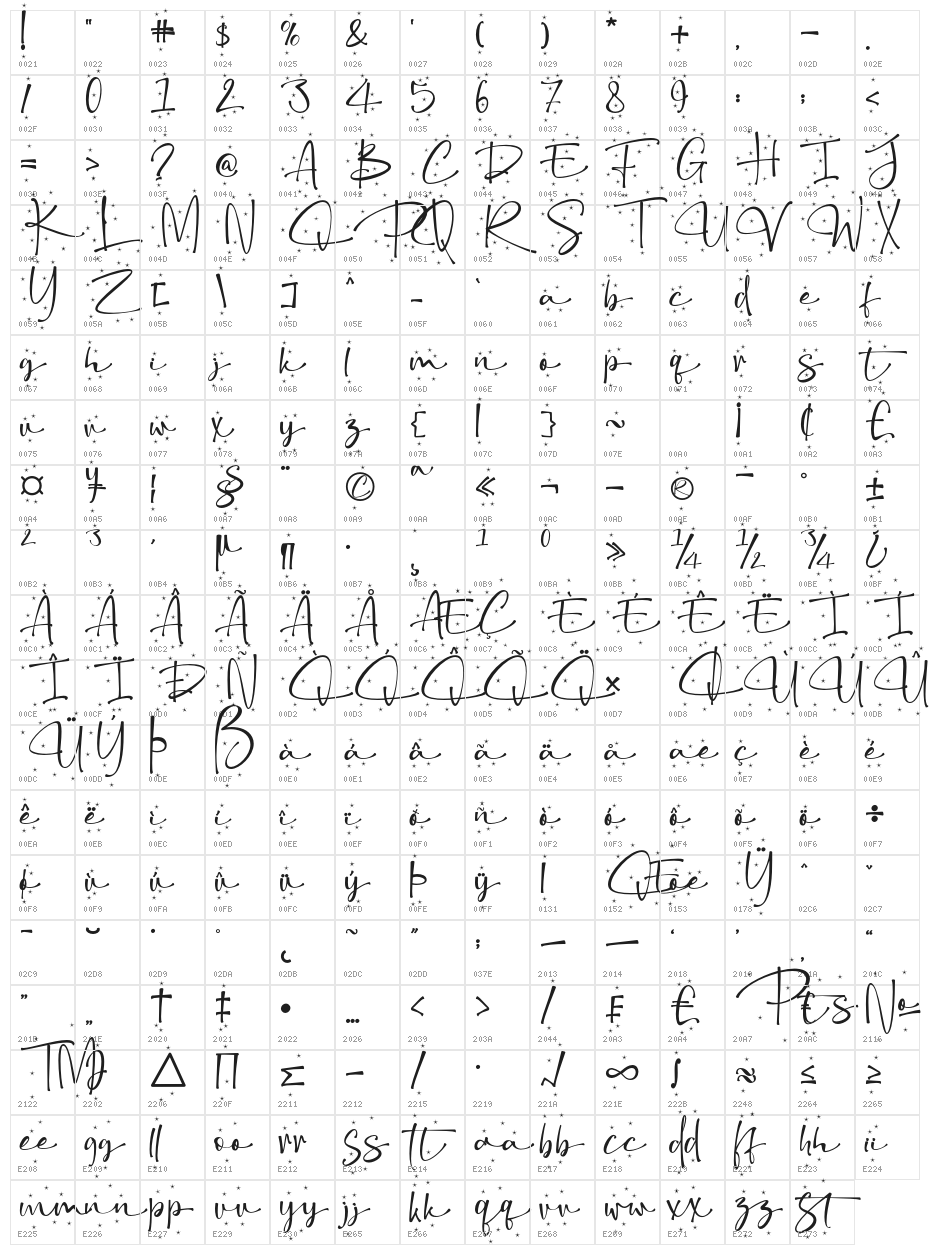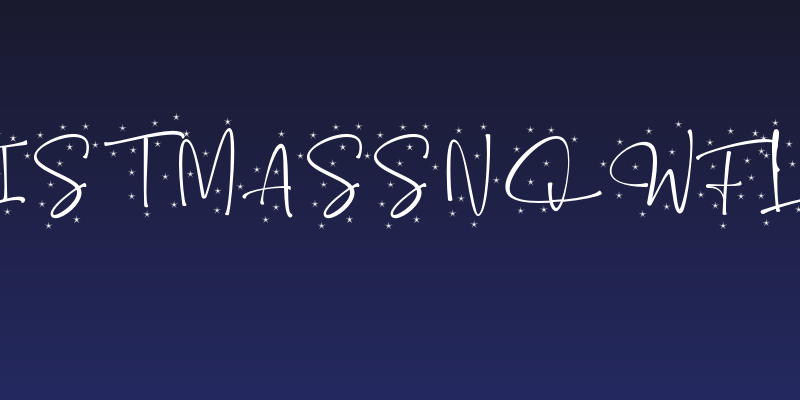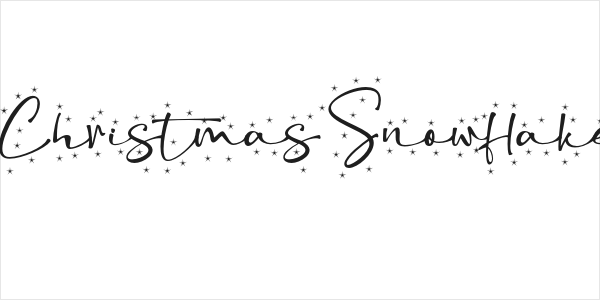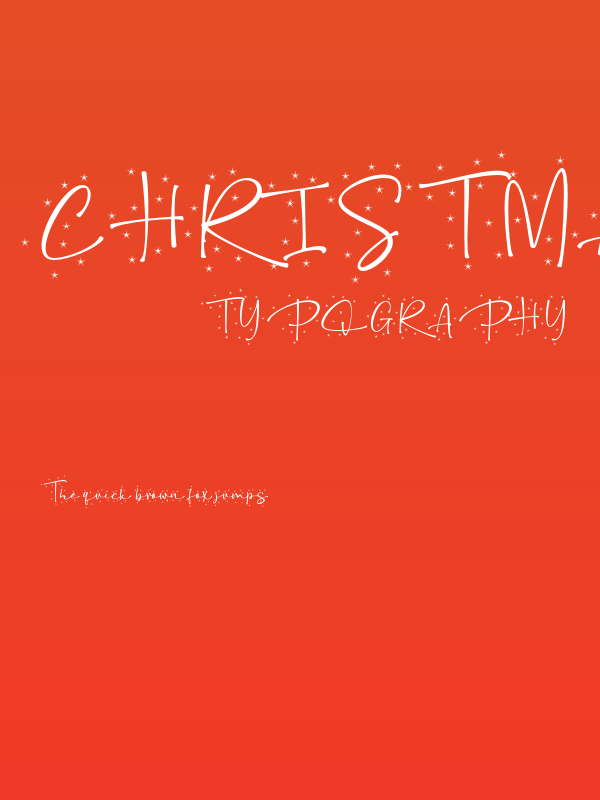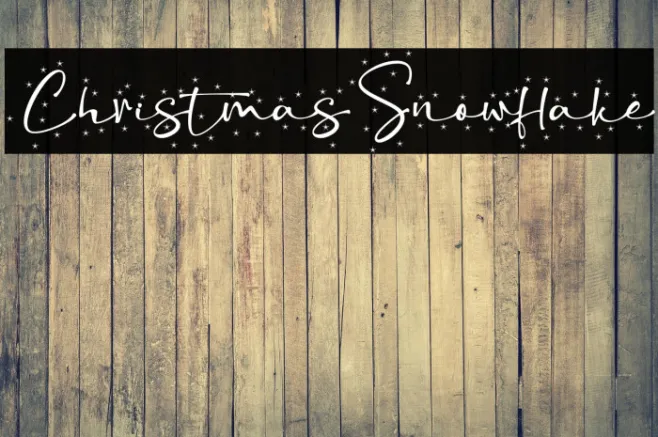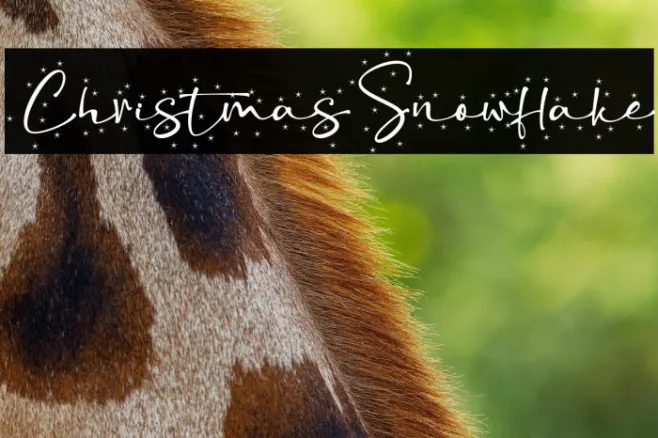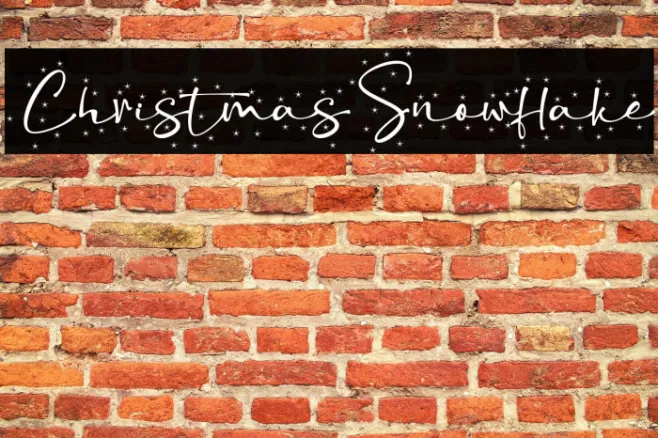
ChristmasSnowflake Font
ChristmasSnowflake Description
This whimsical font features a playful, handwritten style with a unique twist. Each character is adorned with small snowflake-like stars, adding a festive and decorative touch. The uppercase letters are bold and slightly irregular, giving a casual and friendly appearance. The lowercase letters maintain a consistent flow, enhancing the handwritten feel. Numbers and special characters are designed with the same playful aesthetic, making the font versatile for various creative projects. Its distinct style is perfect for holiday-themed designs, greeting cards, and festive invitations.